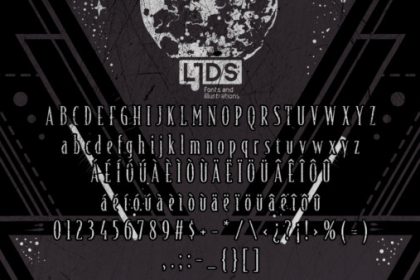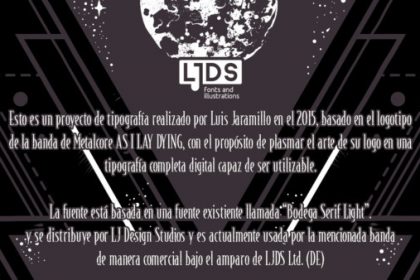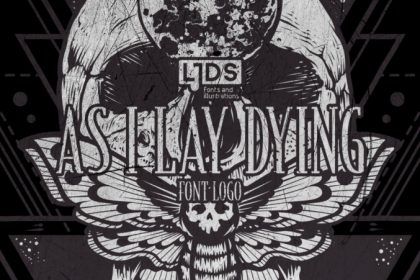
As I Lay Dying Font
This typographic font is an interpretation for the band\’s logo As I Lay Dying, made in tribute to Tim Lambiesis, founder of the band.
Designed by Luis Jaramillo
Esta fuente tipográfica es una interpretación para el logotipo de la banda As I Lay Dying, Hecha en homenaje a Tim Lambiesis, fundador de la banda.